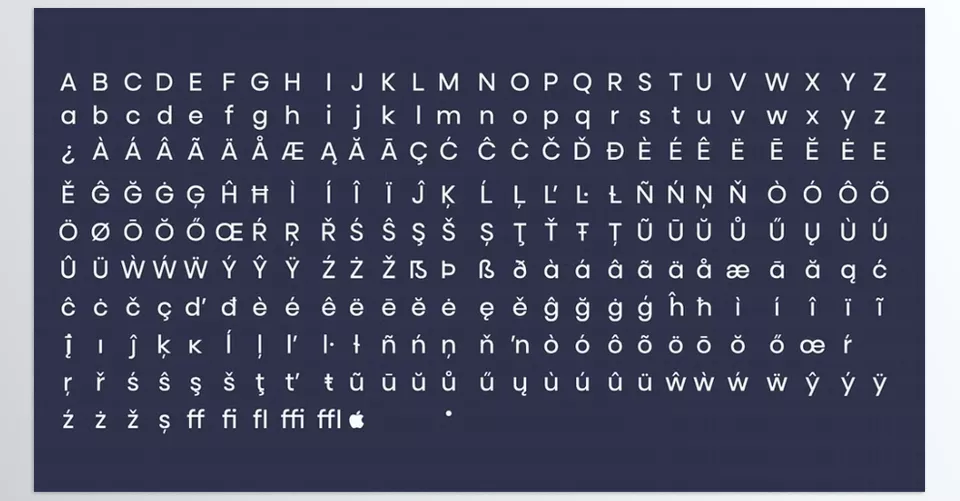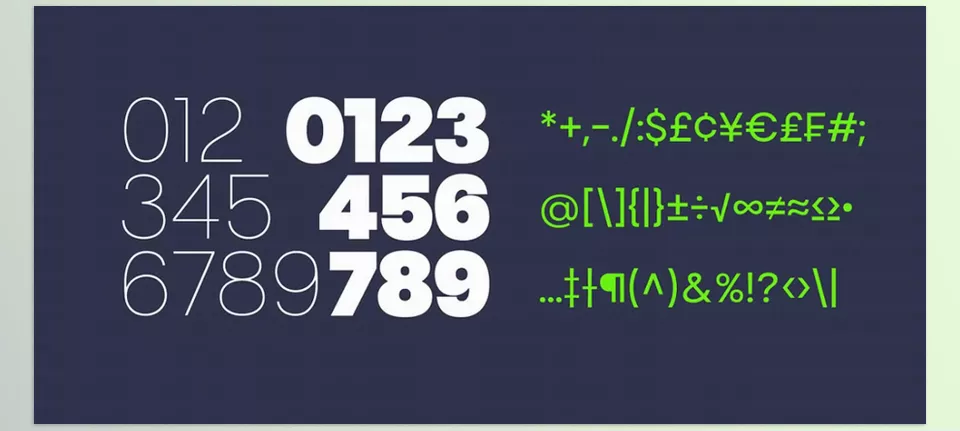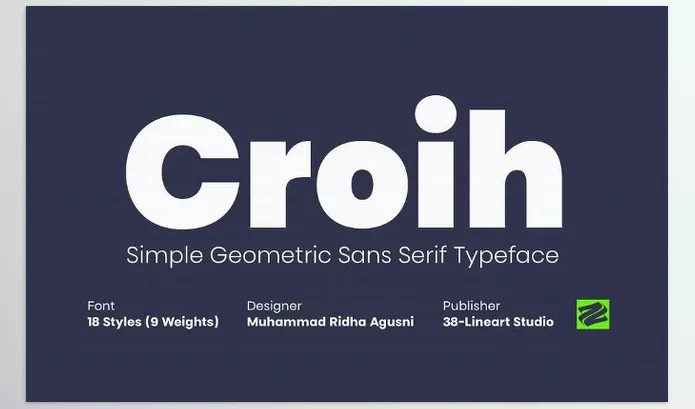
Creative Market – Croih Simple Geometric Sans Serif is a stylized typeface that stands out with its thin, modern lines. Its crisp edges lend it well to various design projects. Croih has 18 styles, from Thin to Black, which facilitates its use for impactful headlines as well as smooth body text.
Ridha-38.lineart – Croih Simple Geometric Sans Serif Features
• Variety of Styles: 18 different styles are available to suit any design.
• Wide Range of Weights: Offers Thin to Black to meet diverse design needs.
• Complete Character Set: Upper and lower case, numerals, symbols, accents, and ligatures.
• Multilingual Support: Suitable for projects in multiple languages.
• Versatile Use: Effective in print and digital applications.
• Modern and Elegant: Striking visuals achieved using contemporary design techniques.
Image 1: Always appropriate – a typeface that fits any design.
Creative Market - Croih Simple Geometric Sans Serif - Always appropriate - a typeface that fits any design.
Image 2: Simple and modern; creates impactful visuals.
Creative Market - Croih Simple Geometric Sans Serif - Simple and modern; creates impactful visuals.